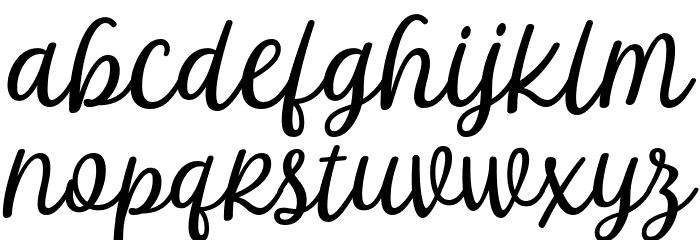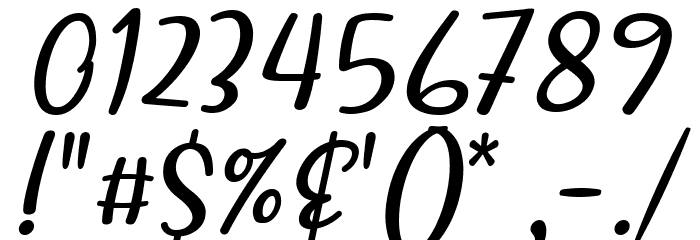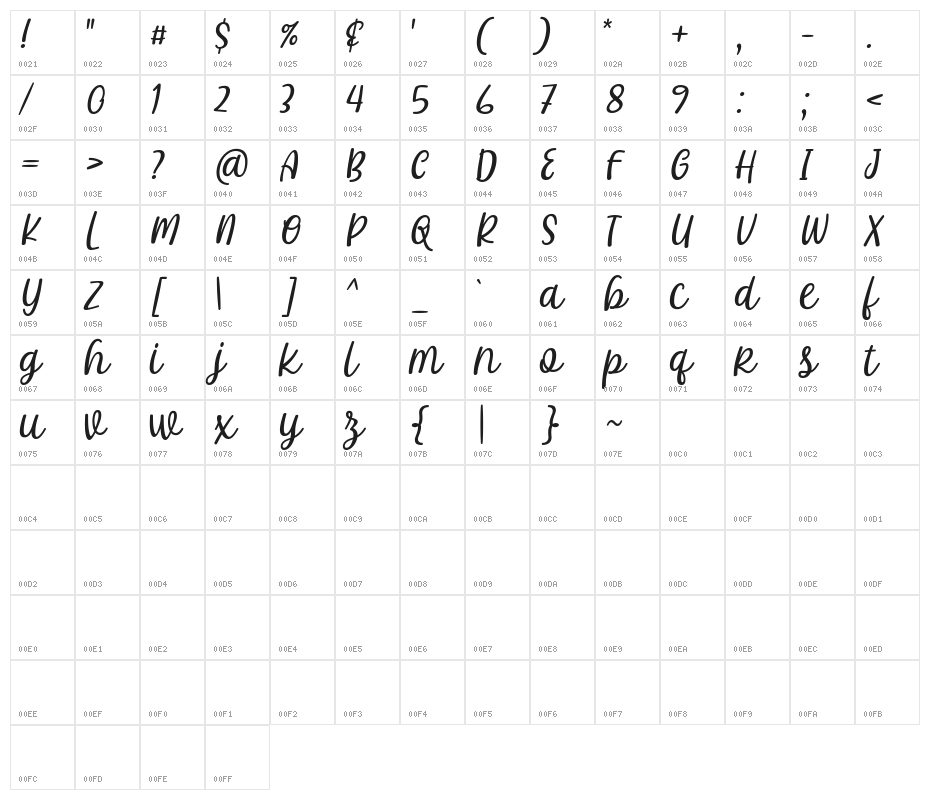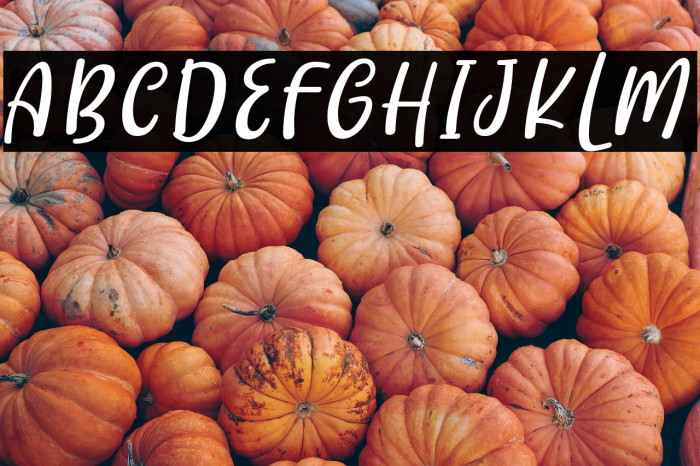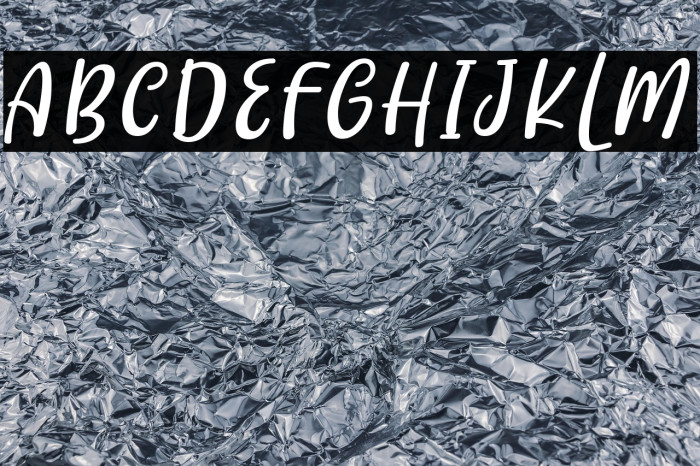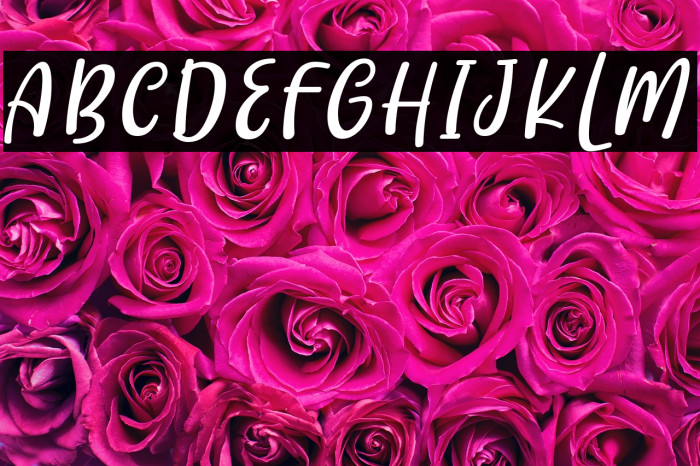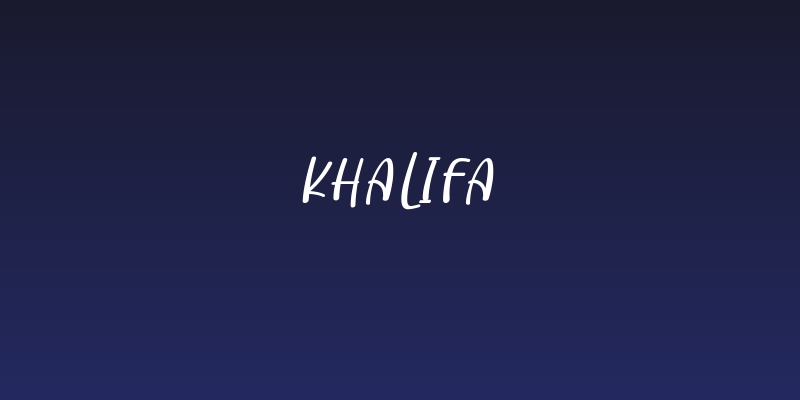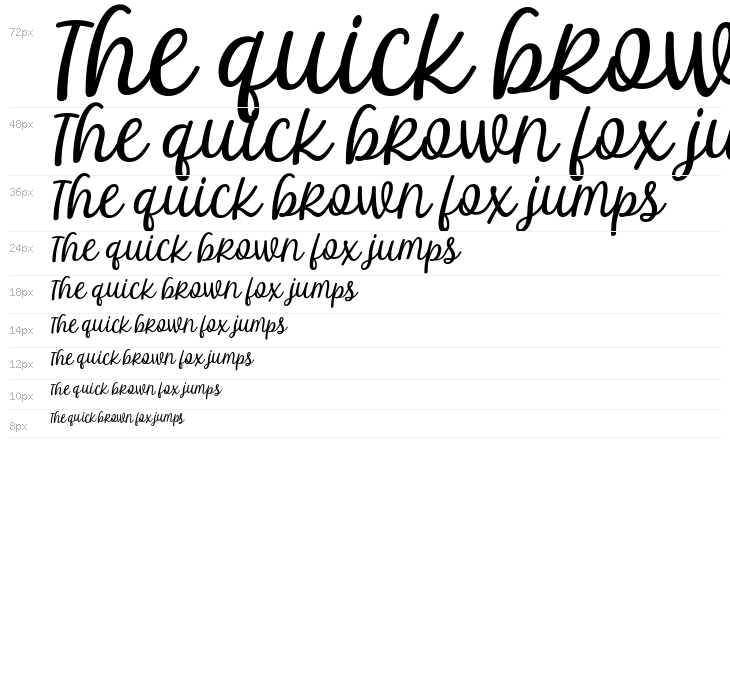
Khalifa Font
This font features a playful and energetic script style, characterized by its smooth, flowing lines and slightly slanted orientation. The uppercase letters are bold and confident, with a consistent stroke width that gives them a solid presence. The lowercase letters maintain a harmonious flow, with rounded edges and a casual, handwritten feel. The numerals are clear and legible, matching the overall style with their rounded forms. Special characters are well-integrated, maintaining the font's lively and approachable aesthetic. This font exudes a sense of friendliness and creativity, making it suitable for a variety of informal and engaging applications.
A playful and energetic script font with smooth, flowing lines and a casual, handwritten feel.
- Proposed Projects: Ideal for greeting cards, invitations, branding projects, and social media graphics that require a friendly and creative touch.
- Category: Script
- Overall Style: Casual, Handwritten
- Use Case: Logos, Invitations, Social Media Graphics